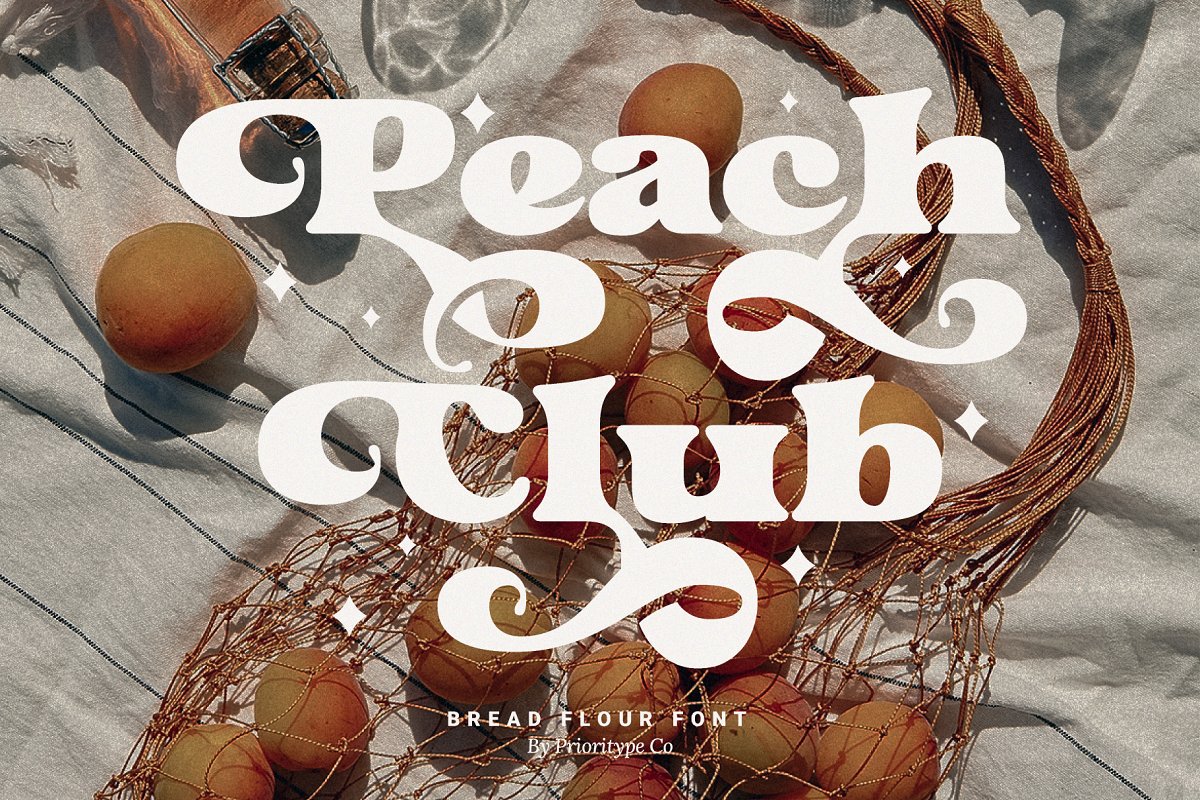
About the Bread Flour Bold Retro Serif Font
This font is included in the bundle: https://creativemarket, com/Prioritype/7551413-The-Modern-Unique-Font-Bundle-02A fat serif font with a lingering retro feel, Equipped with stunning character alternatives to make your design more striking, Great for headlines, branding, logos, merchandise and so on, Type and type now to pour your creative ideas!Features: Uppercase, Lowercase, Numeral, Punctuation, Multilingual, Alternates, Ligatures & PUA Encoded